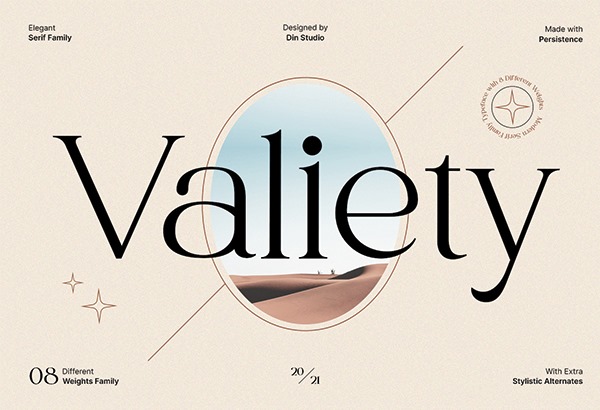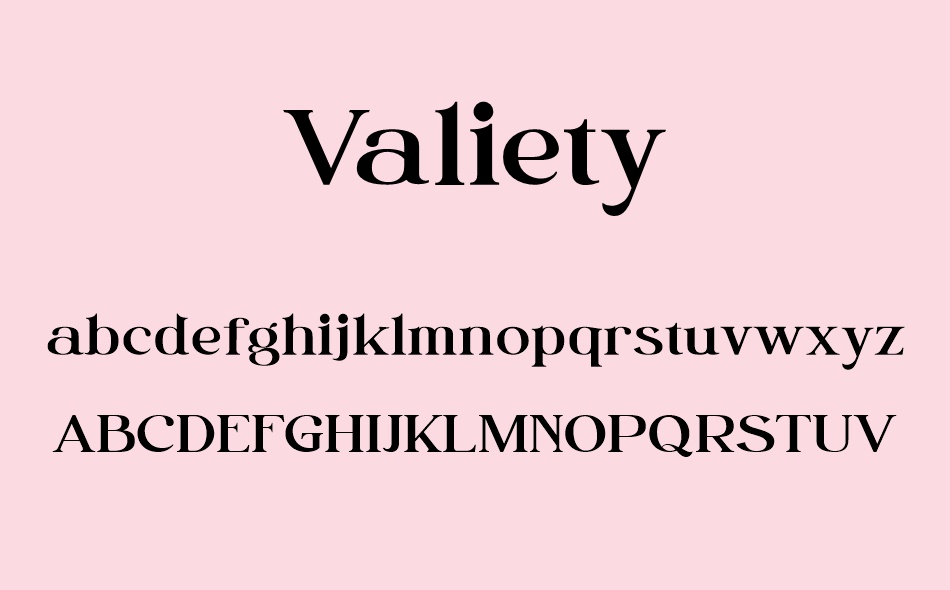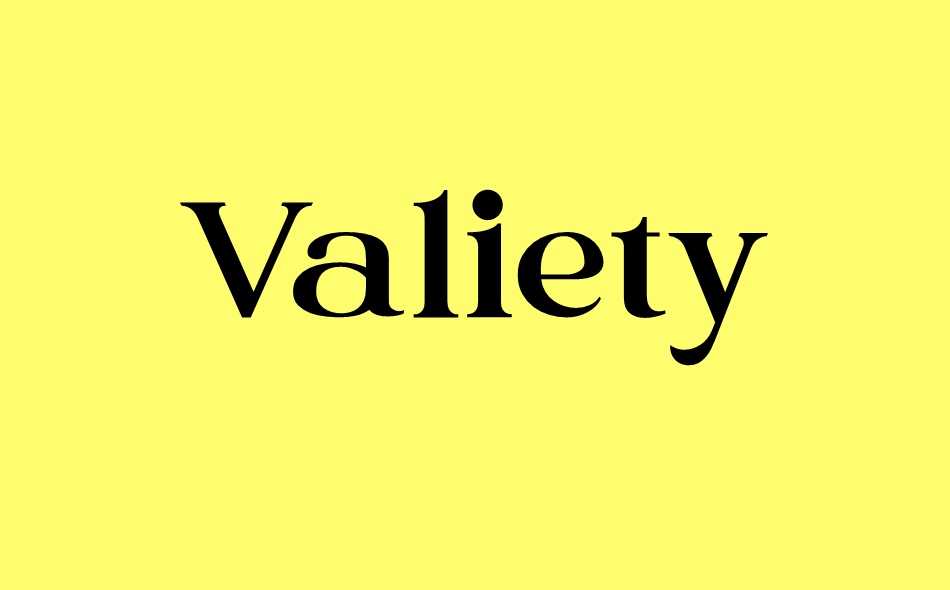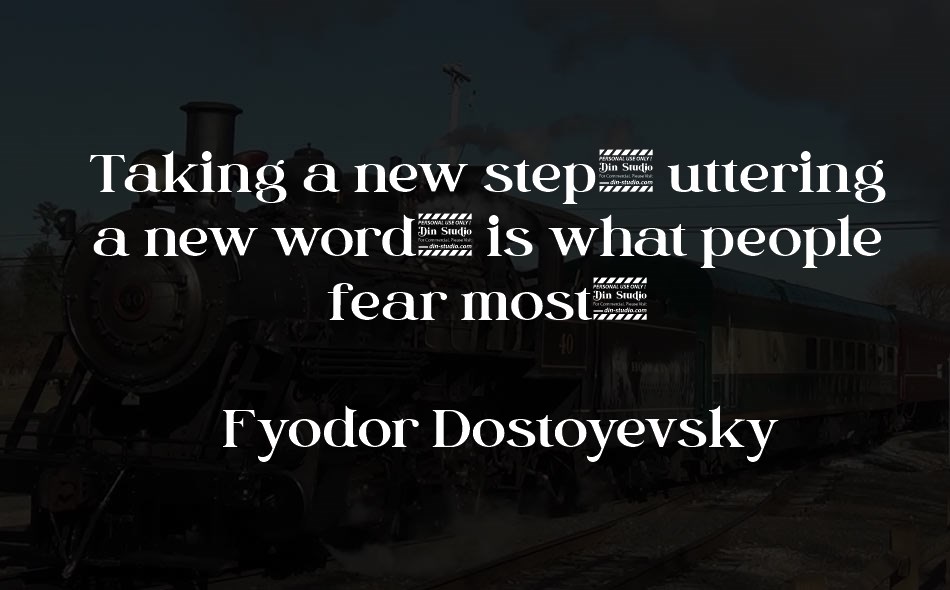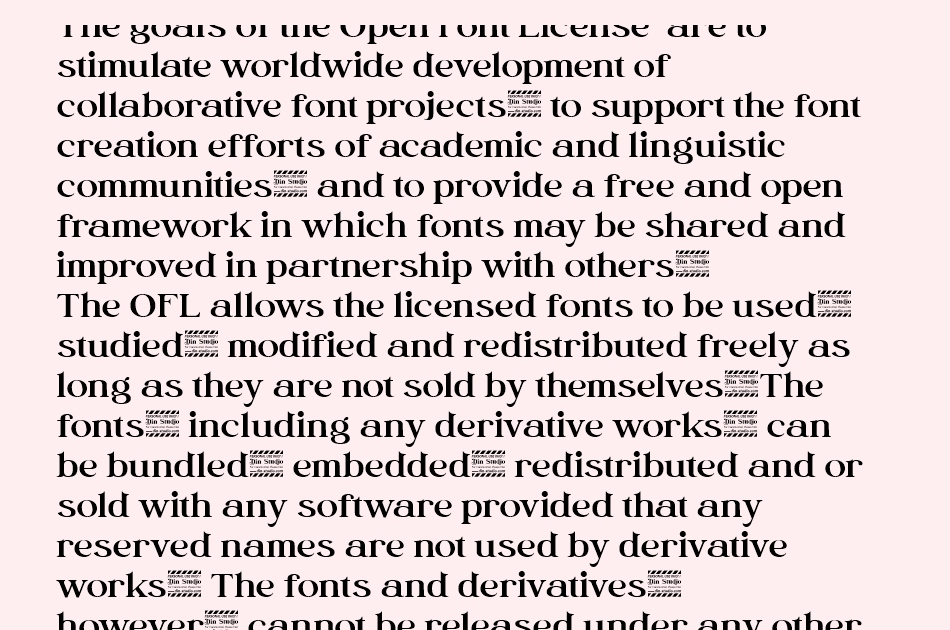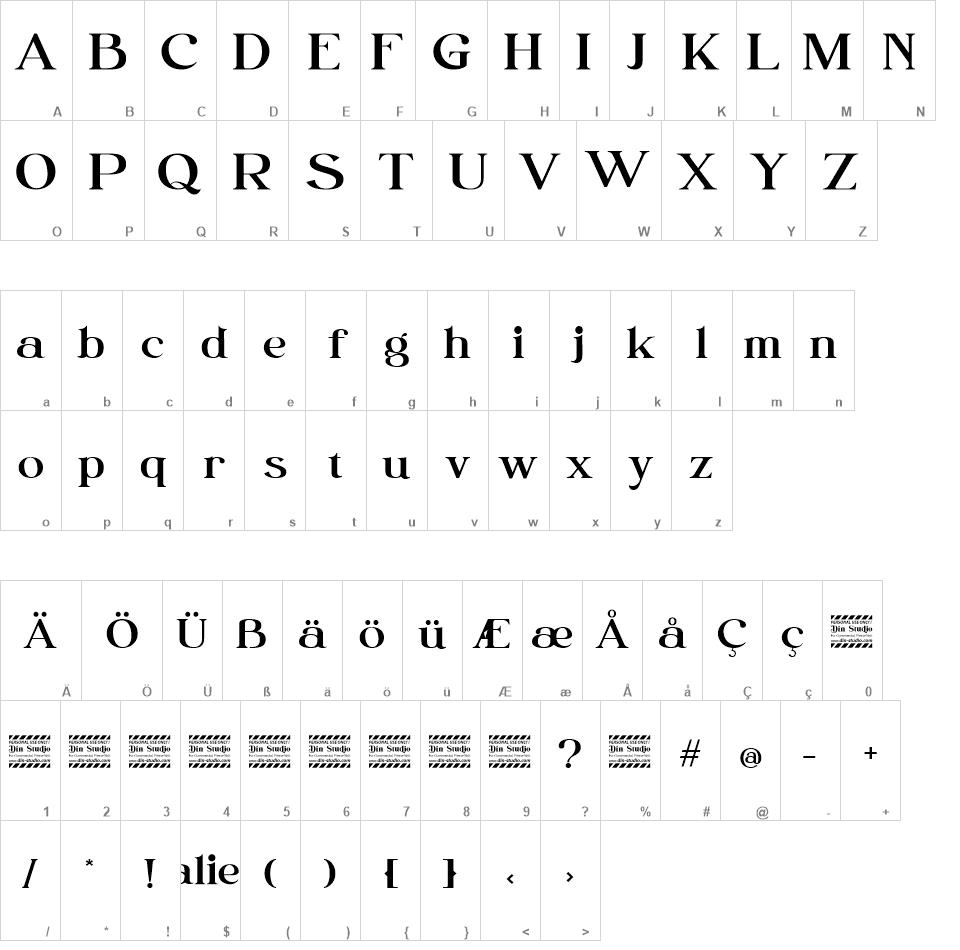
Valiety font
Valiety-A Serif Font Family
Valiety is a package that will delight you. Valiety comes with exquisite character changes and many
weights options, a kind of classic decorative copper serif with a modern touch, designed with high detail for
an elegant style. Valiety is interesting because it is smooth, clean, glamorous, simple and very easy to
read, because there are many fancy letter joints.